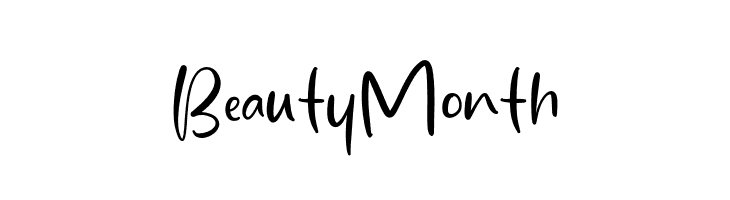
A playful, casual handwritten font with smooth, flowing lines.
An elegant, cursive script font with a handwritten feel.
A bold, flowing script font with elegant curves and a modern yet timeless appeal.
An elegant, flowing script font with intricate swirls and high contrast.
A decorative script font with elegant loops and high contrast strokes.
A playful and elegant handwritten script font with fluid, connected letters.
A graceful script font with flowing, connected strokes and elegant curves.
An elegant, cursive script font with intricate loops and swirls.